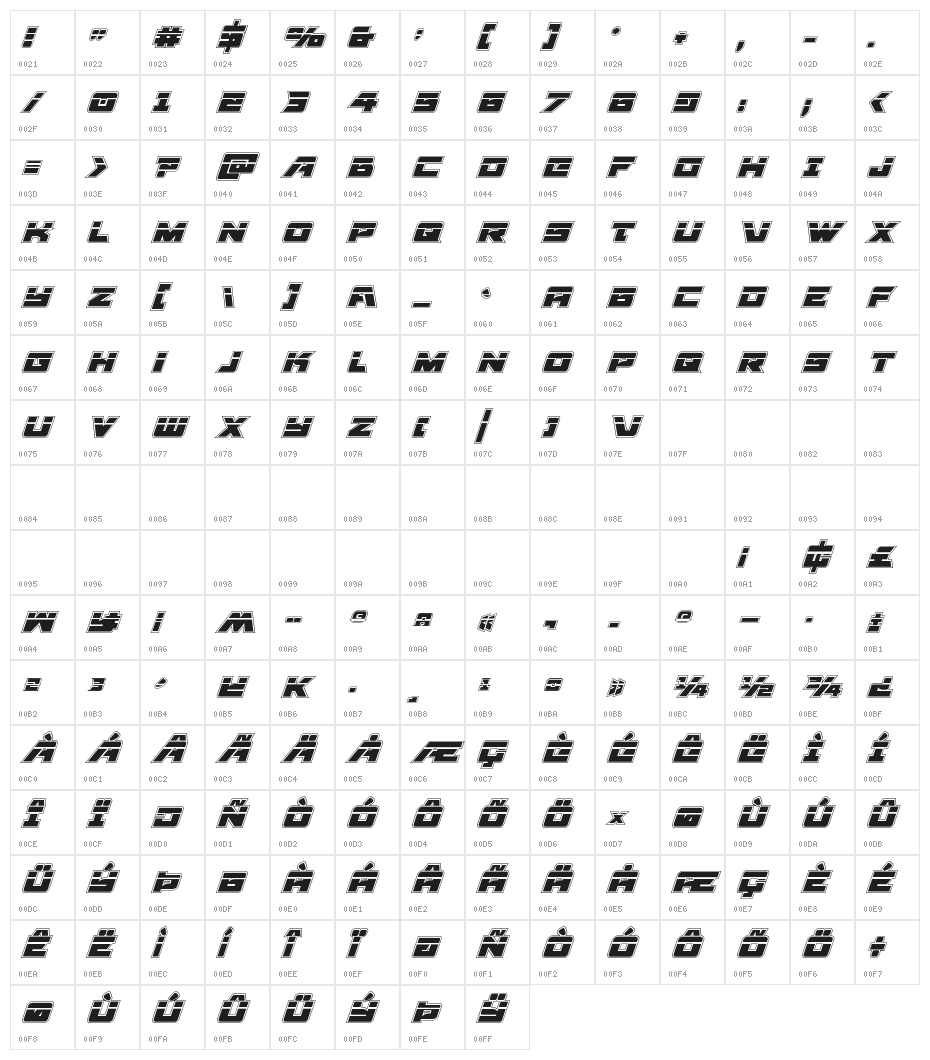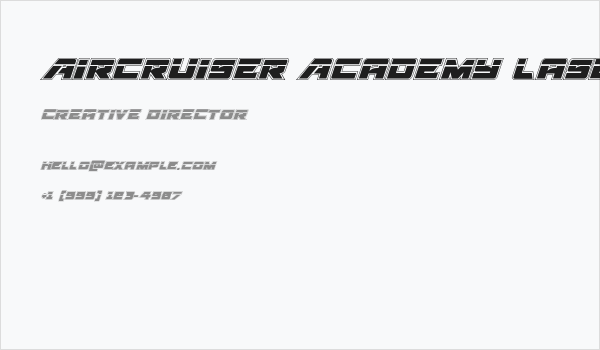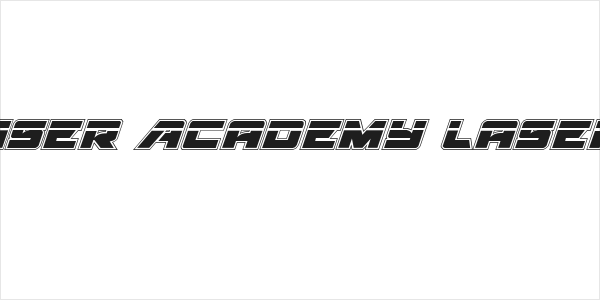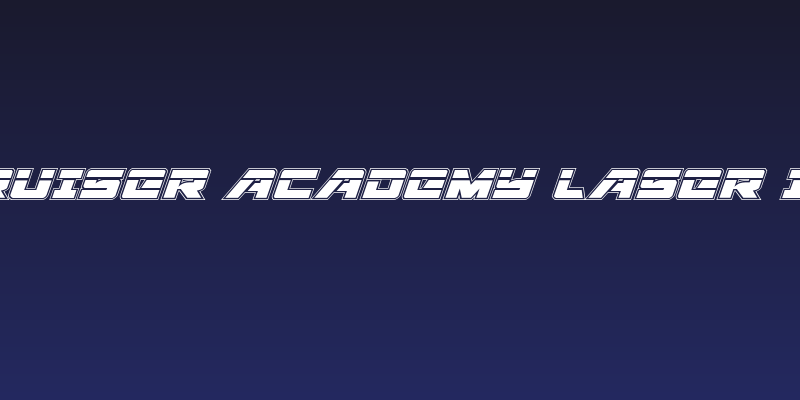
Aircruiser Academy Laser Italic Font
Aircruiser Academy Laser Italic Description
This font features a bold, futuristic design with a distinct italic slant, giving it a dynamic and energetic appearance. The characters are outlined with a double-layered effect, creating a sense of depth and movement. The angular and geometric shapes of the letters contribute to its modern and tech-inspired aesthetic. The uppercase and lowercase letters maintain a consistent style, while the numbers and special characters complement the overall look. This font is ideal for projects that require a bold statement and a modern touch.